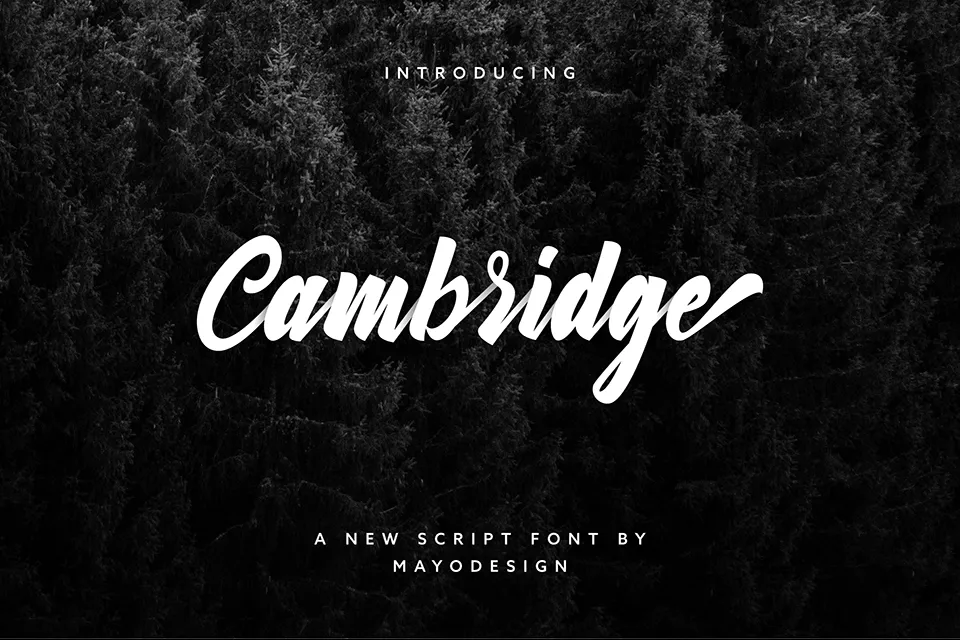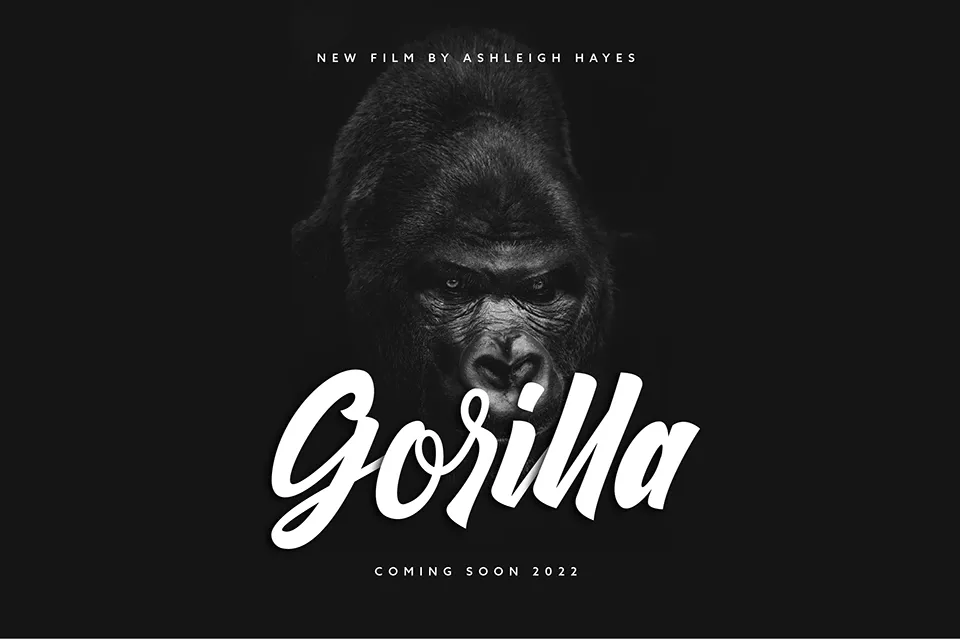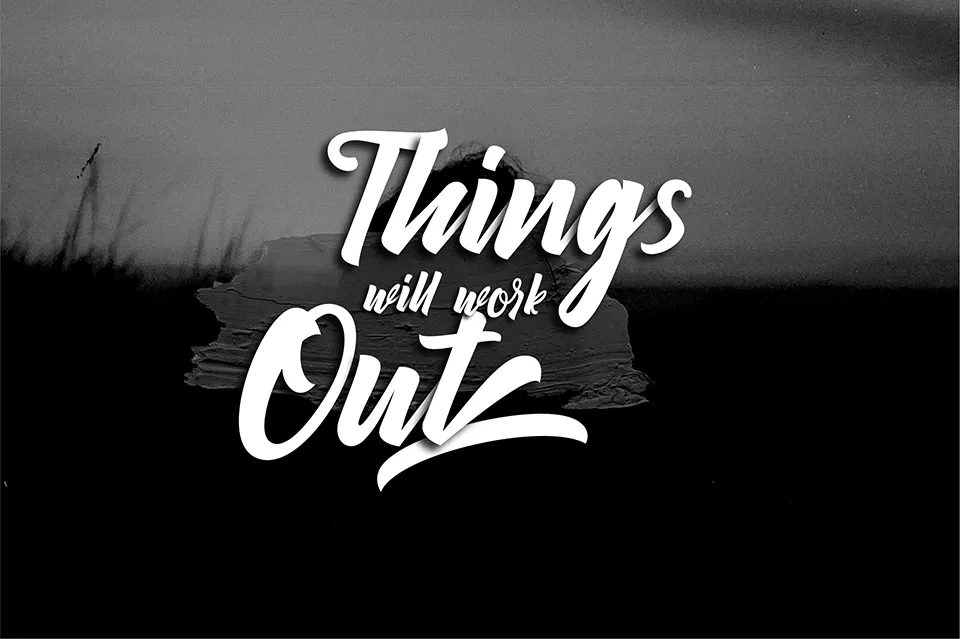
Cambridge Font
Cambridge Font is an elegant calligraphy script typeface designed by Mayofont, ideal for creating sophisticated designs across various applications including logotypes, apparel, invitations, branding, and packaging materials.